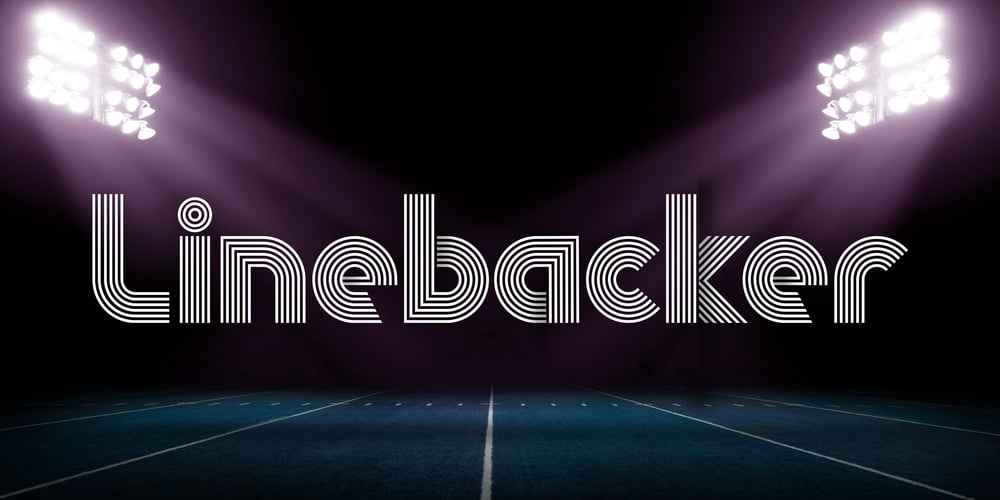
Linebacker
Linebacker font
Linebacker Font Family was designed by Paul Cracknell and published by Something and Nothing. Linebacker contains 8 styles and family package options. Step onto the field with Linebacker, a font as bold and commanding as its gridiron counterpart. Crafted with six precise lines in a sleek geometric style, Linebacker exudes strength and athleticism, making it the perfect choice for sports or motorsport designs. Choose from eight dynamic styles including Regular, Trio, Solid, and more, each offering a unique twist on the powerful Linebacker aesthetic. With a vast glyph set encompassing 379 characters, Linebacker ensures seamless communication in multiple languages. Dominate the design game with Linebacker, where precision meets power.